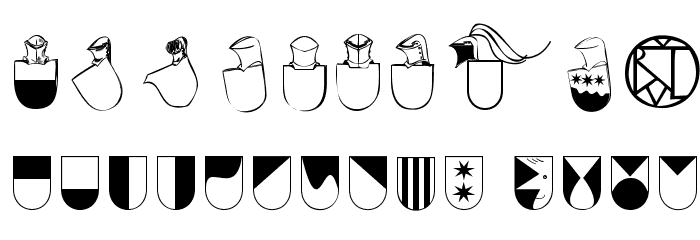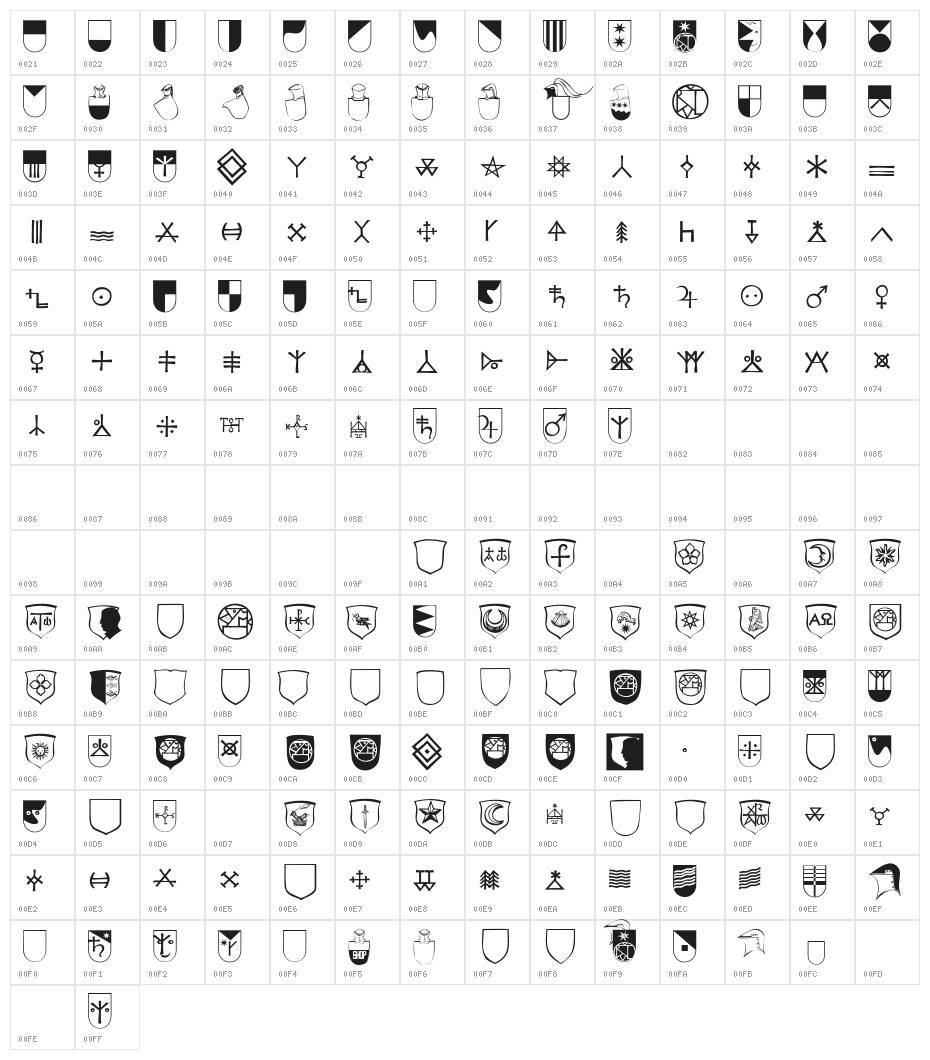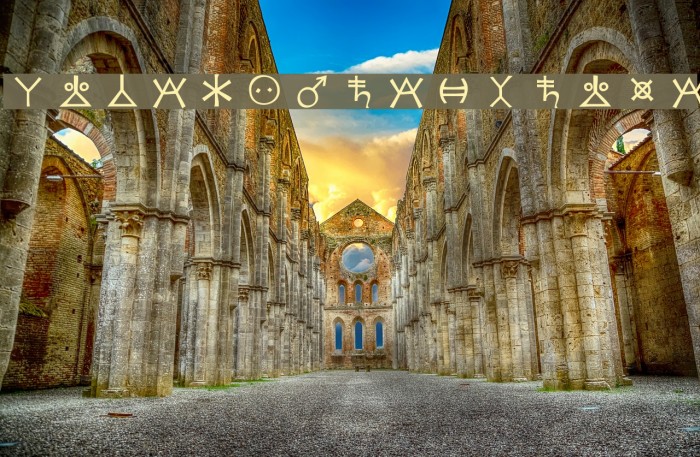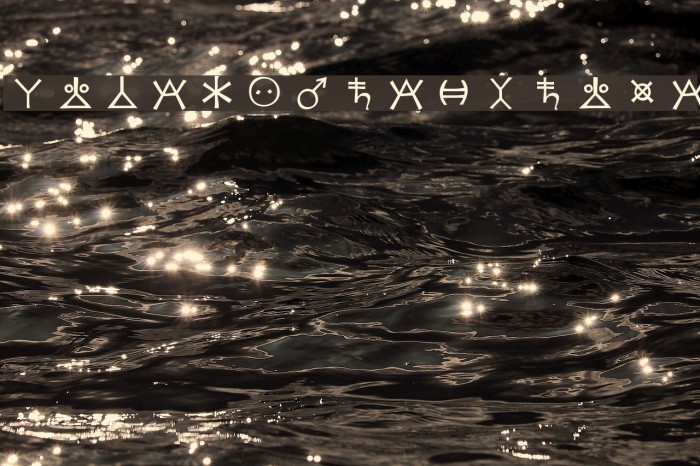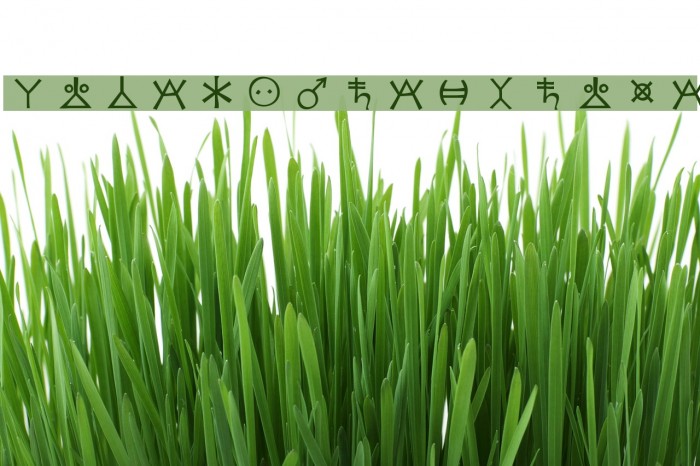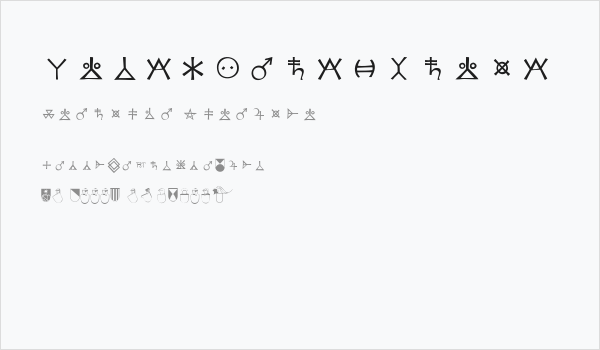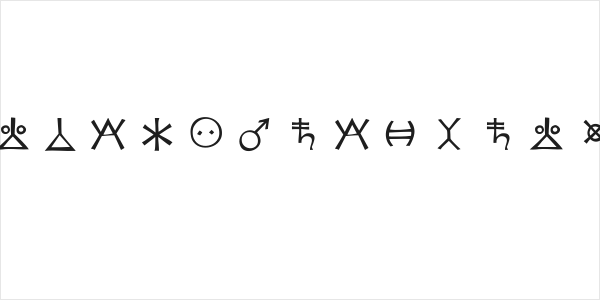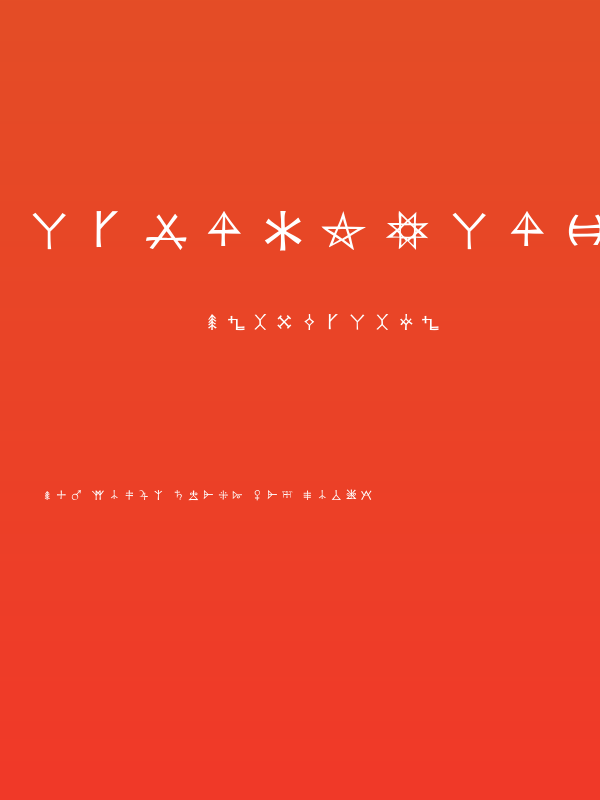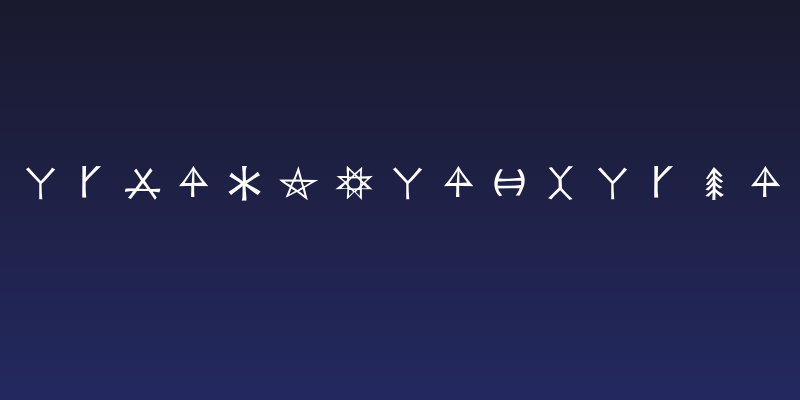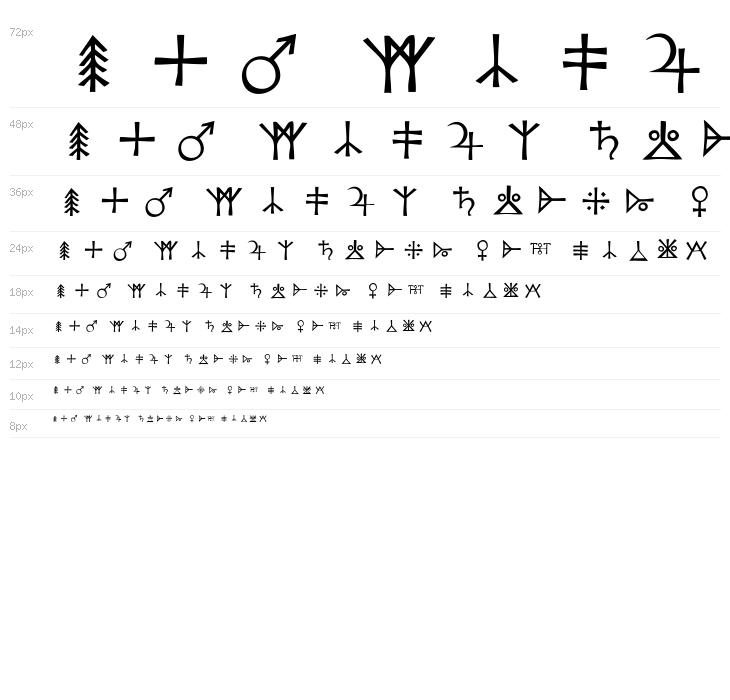
ArmsIdeasNParts Font
ArmsIdeasNParts Description
This collection of symbols and icons features a diverse array of abstract and geometric designs, each with a unique and intricate style. The symbols include a mix of astrological, alchemical, and heraldic elements, with some resembling ancient runes or mystical signs. The designs are bold and striking, with a consistent line weight that gives them a cohesive appearance. The symbols are highly decorative, making them suitable for use in projects that require a touch of mystery or historical flair. The overall aesthetic is both modern and timeless, with a nod to ancient symbolism.
| Use Case | Logos, Decorative elements |
| Proposed Projects | Ideal for use in branding, logo design, or as decorative elements in graphic design projects that require a mystical or historical touch. |